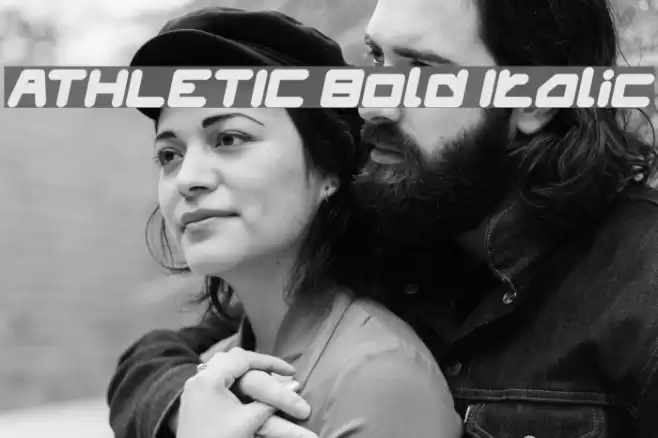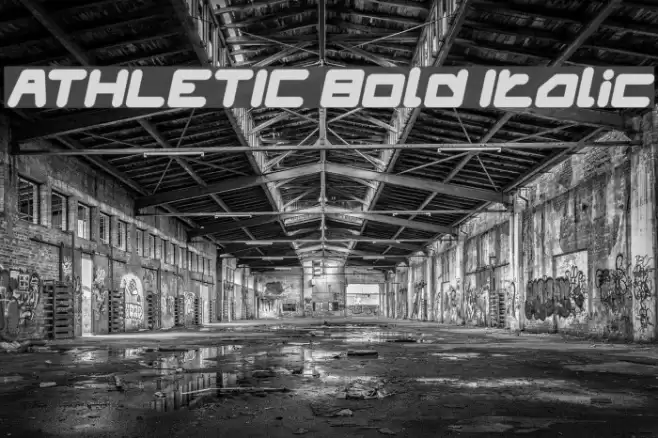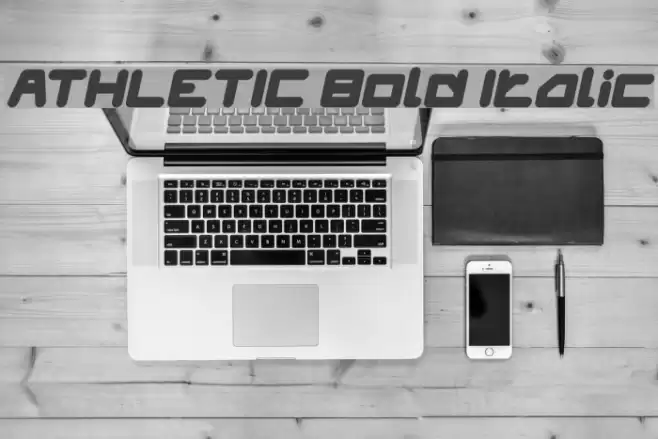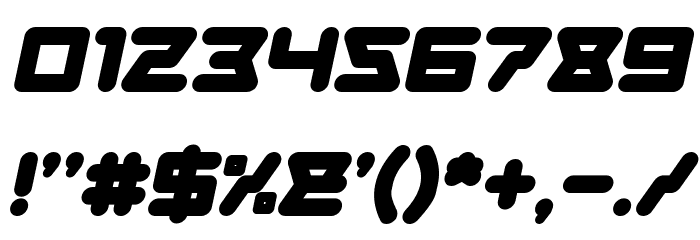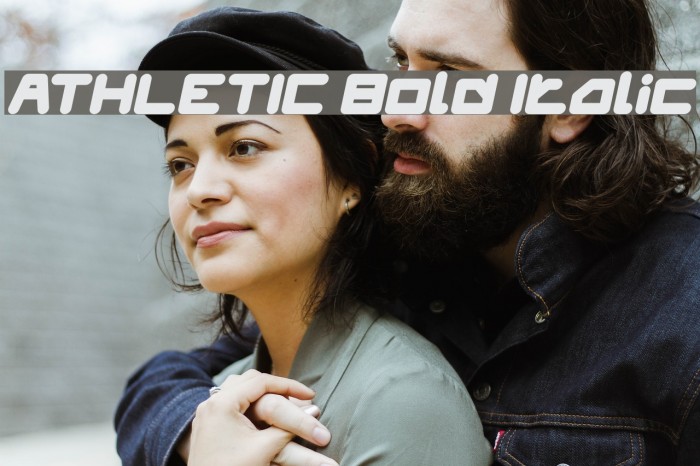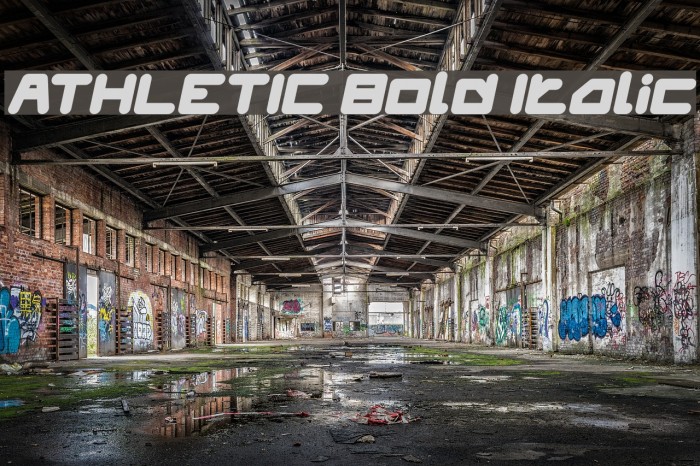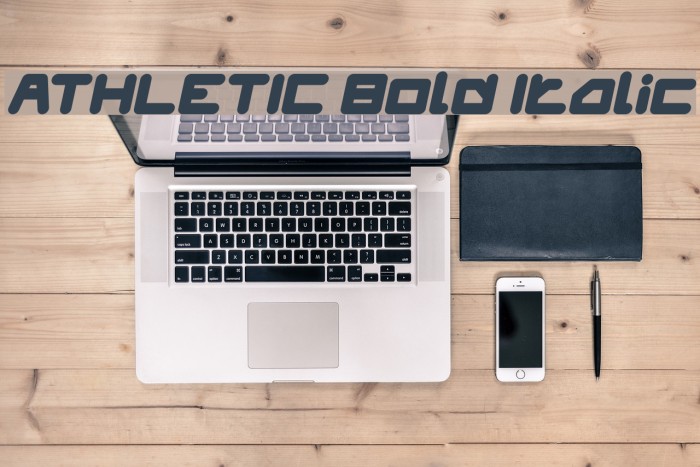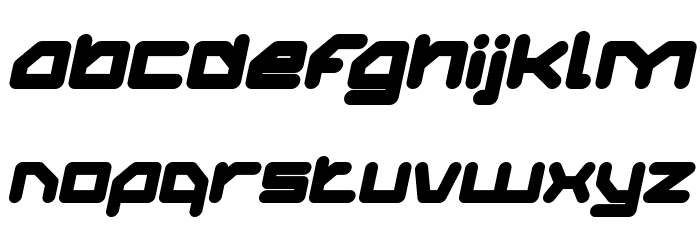
ATHLETIC Bold Italic Font
ATHLETIC Bold Italic Description
This font features a bold and italicized style with a modern, athletic aesthetic. The characters are rounded and slightly condensed, giving a sense of motion and energy. The uppercase and lowercase letters maintain a consistent style, with smooth curves and a uniform thickness that enhances readability. The numbers and special characters follow the same design principles, ensuring a cohesive look across all elements. The overall appearance is dynamic and impactful, making it suitable for projects that require a strong visual presence.
A bold, italicized font with a modern, athletic style and rounded characters from Uncategorized fonts.
- Proposed Projects: Ideal for sports branding, athletic apparel, dynamic posters, and energetic marketing materials.